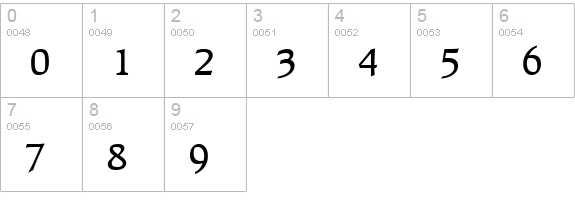
Recognita Book SSi Medium is a comfortable, highly readable variant in the Recognita typeface family \xE2\x80\x94 well suited to long-form body text, articles, and editorial content.
Recognita Book SSi Medium is a versatile and elegant font that effortlessly combines classic elements with modern simplicity. Its medium weight strikes the perfect balance, making it suitable for a wide range of design projects, from editorial layouts to branding materials. This font exudes a sense of sophistication and professionalism, making it ideal for corporate communications and formal documents. Its clean and legible letterforms ensure readability across various sizes and mediums, while its subtle curves and refined details add a touch of refinement to any design. Recognita Book SSi Medium is freely available to download at FontsMarket.com. This means that you can easily access and use this font for personal and commercial projects without any restrictions or limitations. Its availability as a free download allows designers, creatives, and enthusiasts alike to incorporate this stunning typeface into their work effortlessly. Whether you're designing a logo, creating a book cover, or crafting a website layout, Recognita Book SSi Medium is a reliable choice that will elevate your designs and leave a lasting impression. Its timeless appeal and versatility make it a valuable addition to any font collection, and its accessibility as a free download makes it even more appealing. Don't miss out on the opportunity to enhance your designs with this exceptional font! Download Recognita Book SSi Medium for free at FontsMarket.com and unlock its full potential in your creative endeavors.